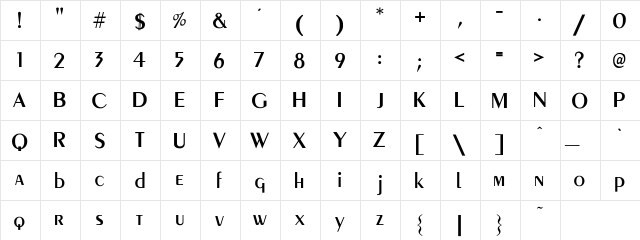
PeigMed-Medium Regular
Design Context for PeigMed-Medium Typeface
PeigMed-Medium takes a measured approach to typography — its balanced proportions and neutral character make it a reliable workhorse for both digital and print work.